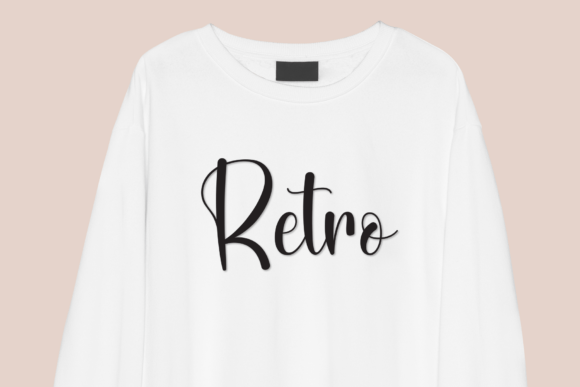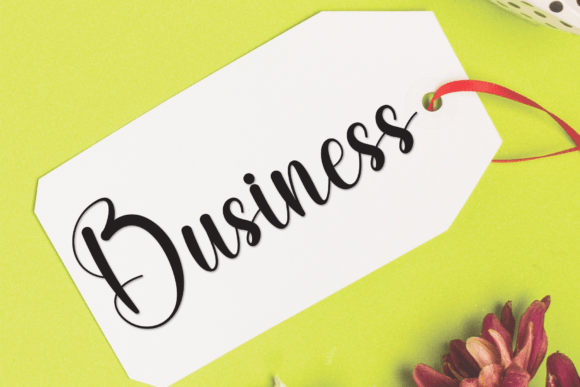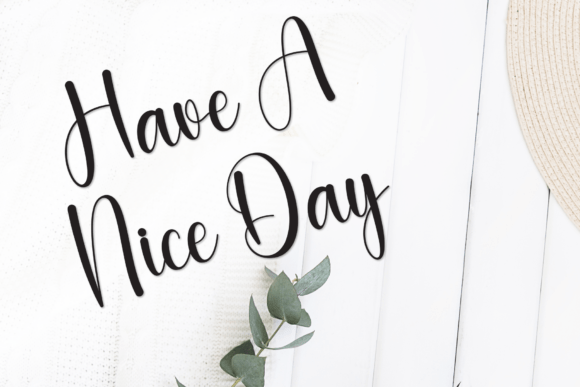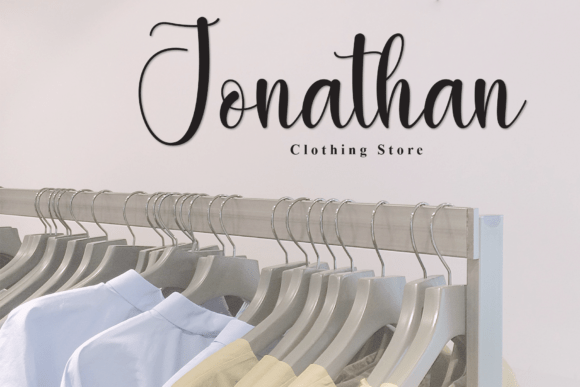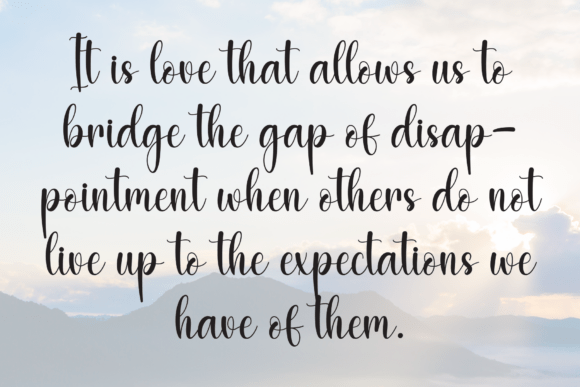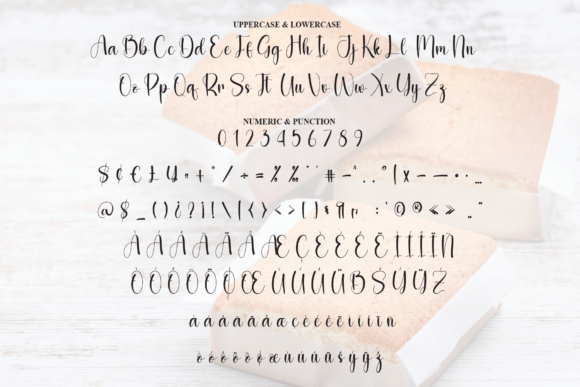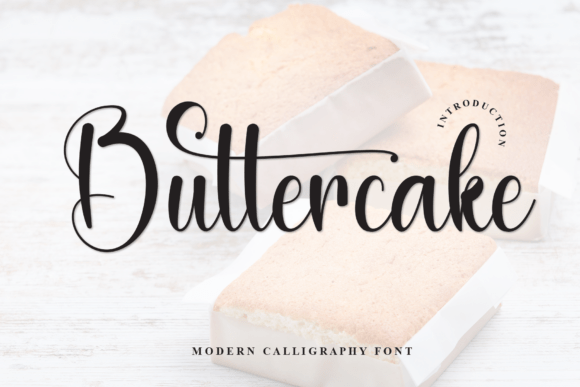
Discover the Delightful World of Buttercake Font
Imagine you’re working on a wedding invitation project, and your client requests a font that’s as sweet as the occasion. You’ve scoured the internet, but nothing seems quite right. That’s when you stumble upon Buttercake Font – a captivating handwritten typeface that breathes life into your artistic endeavors, effortlessly brimming with personability and cheery charisma.
A Personal Review of Buttercake Font
As a designer, I’m always on the lookout for fonts that can add a touch of magic to my projects. Buttercake Font has quickly become one of my go-to’s, and here’s why:
- ✨ Unique and eye-catching: This font stands out from the crowd with its spirited blend of frivolity and joy.
- ✅ Versatile: Perfect for everything from wedding invitations to greeting cards, or for any design longing for a sprinkle of magical charm.
- 💫 Effervescent personality: This font enlivens your artistic works, imbuing them with an effervescent surge of delight and exhilaration.
While Buttercake Font is a stunning addition to any design, there are a few things to keep in mind:
- 🤔 Limited use in formal designs: This font’s playful nature might not be suitable for formal or corporate designs.
- ⚠️ Glyph limitations: Some users have reported that the font could benefit from a wider range of glyphs.
The Backstory of Buttercake Font
Buttercake Font was designed with the intention of spreading joy and whimsy. Its creator, inspired by the warmth and playfulness of handwritten scripts, aimed to craft a font that would bring a smile to users’ faces. With its delightful combination of frivolity and charm, Buttercake Font has quickly become a favorite among designers and crafters.
| Does Buttercake Font support OpenType features? | Yes, Buttercake Font supports various OpenType features, including ligatures and stylistic alternates. |
| Is Buttercake Font available in different weights or styles? | Currently, Buttercake Font is available in a single style, but its versatility and charm make it perfect for a wide range of designs. |